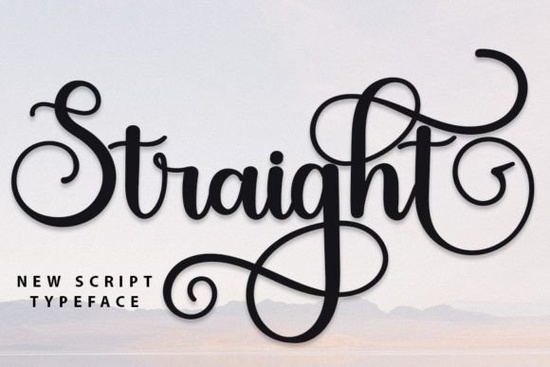
The Straight font is a stylish handwritten typeface that blends contemporary design with classic calligraphy roots. It has a balanced, refined look that works well across many creative projects from wedding invitations to brand logos. If you've been searching for a script font that feels polished but still personal, this one deserves a closer look.
What Makes the Straight Font Stand Out?
Plenty of handwritten fonts look messy or overly casual. Straight takes a different approach. It draws inspiration from timeless calligraphy but keeps a modern, clean feel. The letterforms are well-proportioned, so text stays readable even at smaller sizes. The overall rhythm of the font feels natural like someone with excellent handwriting sat down and wrote your text by hand.
The font also includes a solid range of ligatures and alternate glyphs, giving you flexibility to customize how certain letter combinations look. This helps avoid that repetitive, "digital" feeling that some script fonts can have.
Who Is This Font For?
Straight is a practical choice for a wide range of creators:
- Print-on-demand sellers who need attractive fonts for t-shirt designs, mugs, and tote bags
- Small business owners building logos, packaging, or marketing materials
- Wedding and event stationery designers looking for elegant script options
- Crafters working on Cricut or Silhouette projects
- Social media managers creating quote graphics or story templates
- Bloggers and content creators who want a personal touch in their headers and graphics
Where Does the Straight Font Work Best?
Here are some specific project ideas where this font fits naturally:
- Logo design The clean calligraphic style gives brands a warm, approachable identity without looking sloppy
- Wedding invitations and save-the-dates Its elegant yet readable form works beautifully for formal stationery
- Social media quotes and graphics Handwritten fonts tend to get more engagement on platforms like Instagram and Pinterest
- Greeting cards Whether it's a birthday card or a thank-you note, the font adds a personal, handcrafted feel
- Book covers and chapter headings The calligraphic influence gives a literary, sophisticated vibe
- Product packaging Especially for handmade goods, cosmetics, or food brands aiming for a boutique aesthetic
- Wall art and printables Quotes and monograms look great in this style
How Does It Compare to Other Script Fonts?
Straight sits in a nice middle ground between formal and relaxed. If you want something more playful, the Sunday script font has a looser, more casual energy. For bold and expressive projects, you might like the Splashed font, which has a more artistic, painterly quality.
On the more decorative side, Sign Rathi offers ornate flourishes that work well for luxury branding. If you're after something moodier, the Gloomy Unseen font brings a darker, more dramatic tone. And for a textured, hand-lettered look, Partly Notes adds a sketchy, organic character to your designs.
Straight is the kind of font you reach for when you want handwritten charm without sacrificing clarity. It's versatile enough to work in professional settings but still has enough personality to feel human.
Quick Tips for Working with Handwritten Fonts
- Pair it with a simple sans-serif for body text this keeps designs balanced and readable
- Use generous letter spacing if you're printing at small sizes
- Test at multiple sizes before finalizing a design, especially for print products
- Explore the alternate glyphs subtle swaps can make your text look more varied and natural
- Avoid using script fonts for long paragraphs they're best for headlines, short phrases, and accents